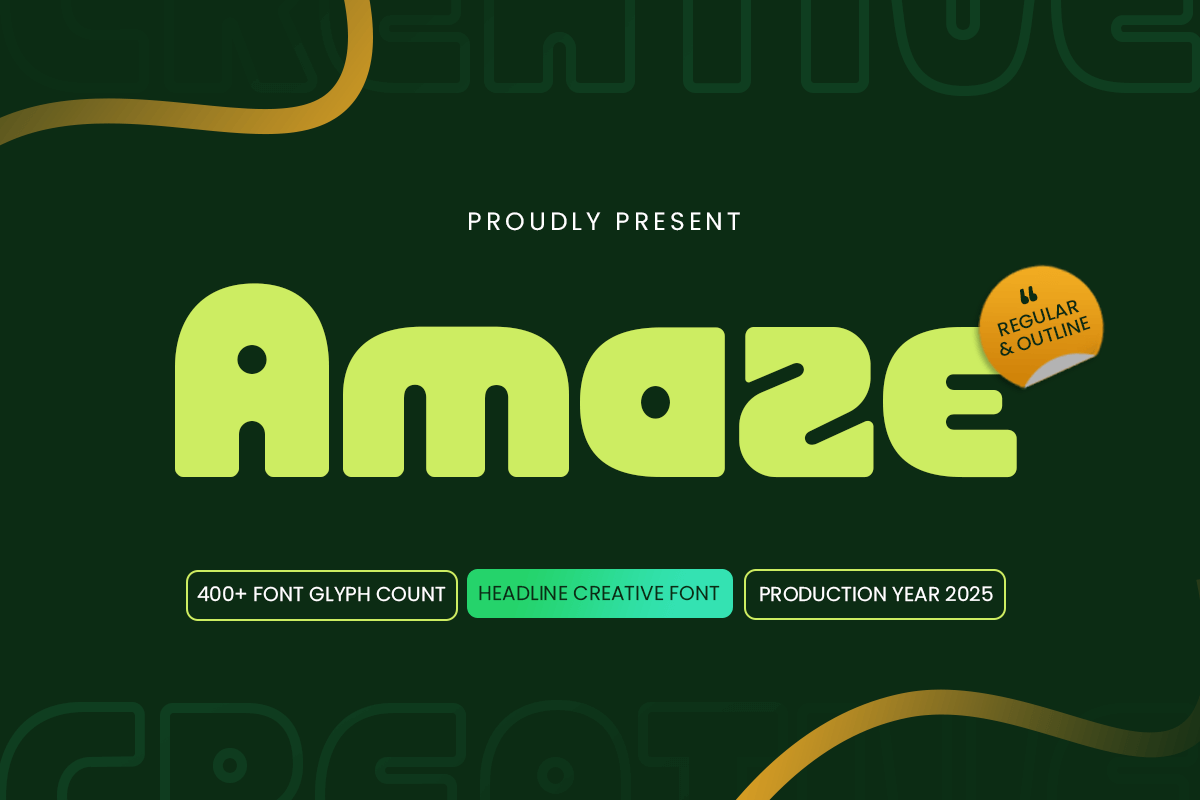
Amaze
-Creative FontAmaze - Creative Font
Amaze is a modern display font built for creatives who want to stand out. With dynamic shapes, unique curves, and bold styling, Amaze is perfect for logos, posters, social media graphics, packaging, and anything that needs an eye-catching presence. It balances artistic flair with strong readability, making it both fun and functional.
Inspired by modern design trends and expressive typography, Amaze brings a playful yet professional tone to your work. It’s the perfect choice for designers, brands, and creators looking to make a bold, imaginative impression in digital or print media. Unlock a world of visual creativity with Amaze—a font that lives up to its name in every character.
Amaze Creative Font Features:
Bold and Artistic Display Style
Ready Normal and Outline Version
Ideal for Creative Projects, Logos, Posters & Social Media
Punctuation, Numbers, and Symbols